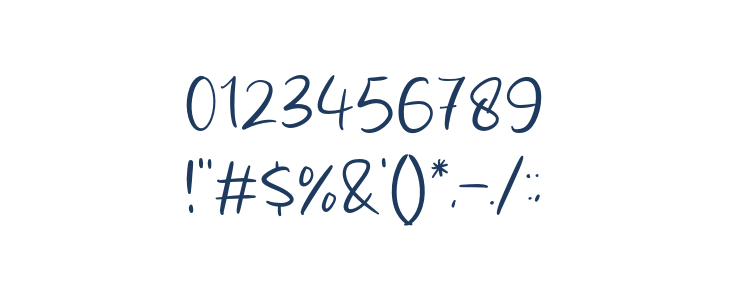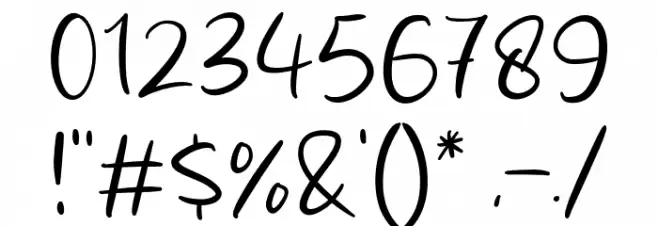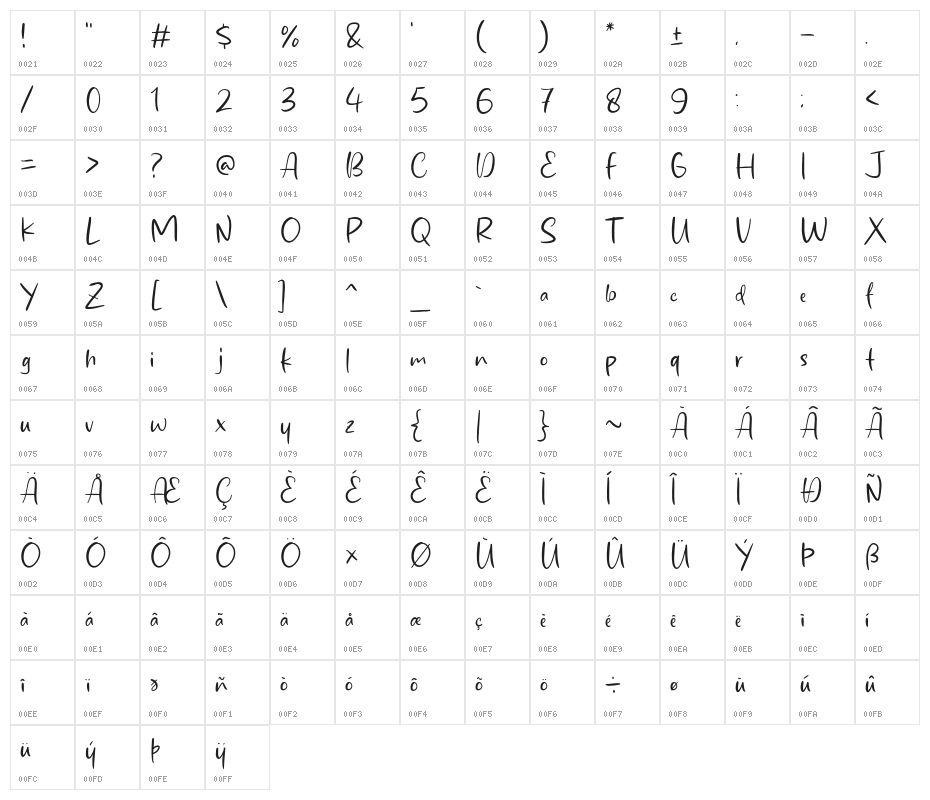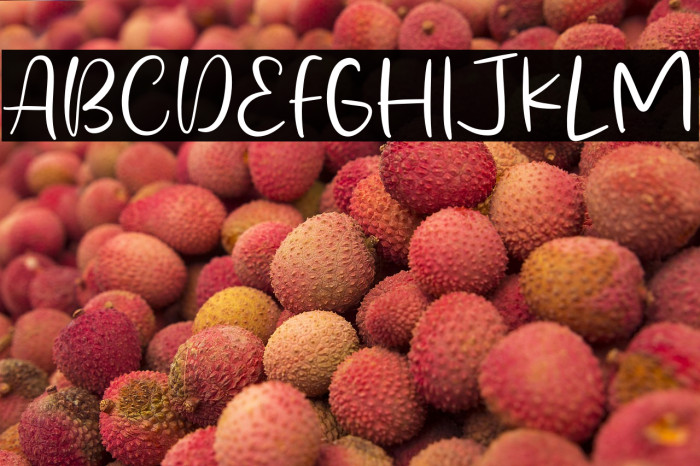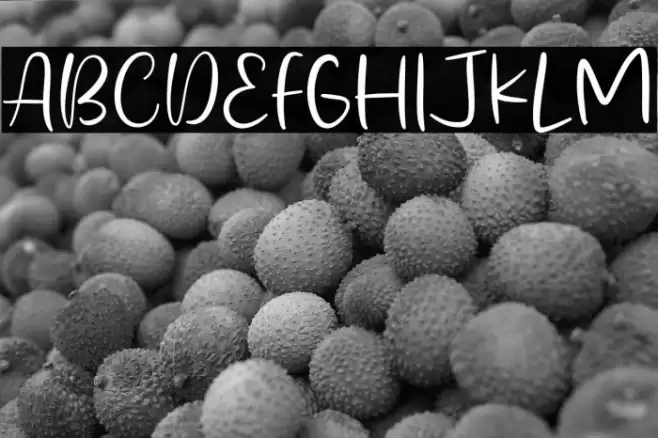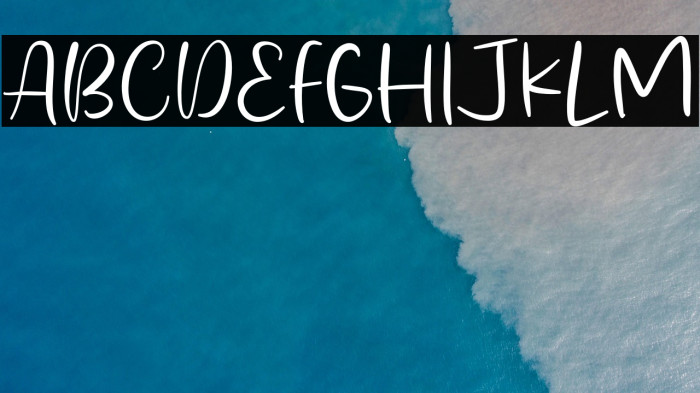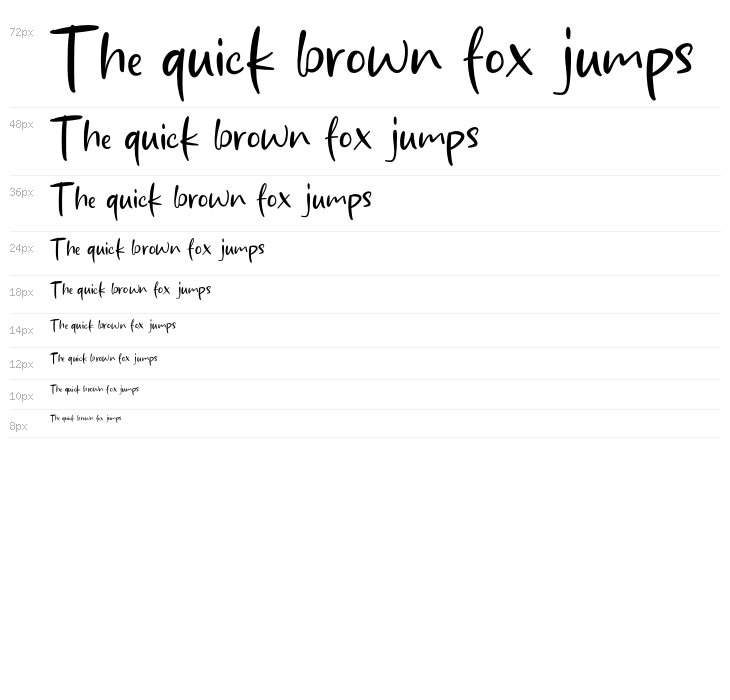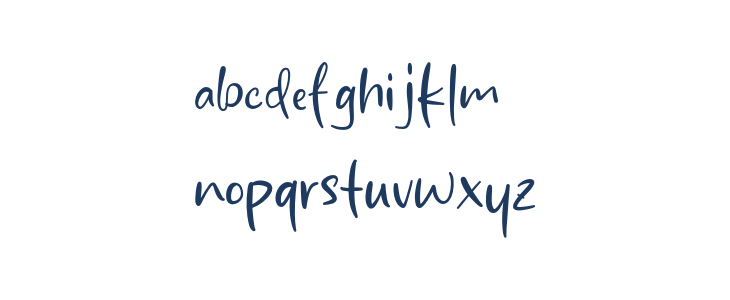
Beauty Month Font
Beauty Month Description
This font exudes a playful and casual handwritten style, characterized by its smooth, flowing lines and slightly irregular shapes that mimic natural handwriting. The uppercase letters are bold and slightly elongated, giving a sense of spontaneity and energy. The lowercase letters maintain a consistent flow, with some letters featuring unique loops and curves that add to the font's charm. The numerals are clear and easy to read, with a slight slant that complements the overall handwritten aesthetic. Special characters are thoughtfully designed to match the playful and informal tone of the font.